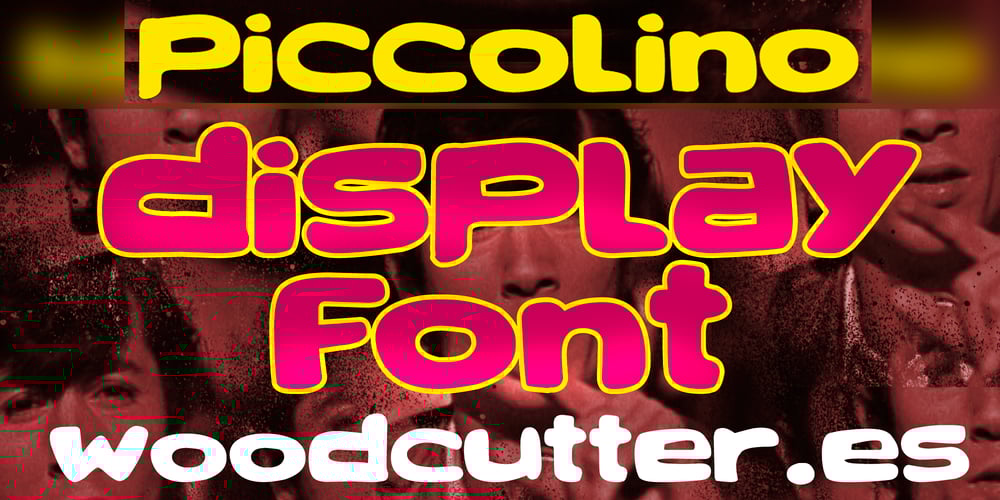
Piccolino Font Family was designed by Jordi Manero and published by Woodcutter. Piccolino contains 1 styles and family package options. “Piccolino” is a font with lowercase yet bold letters, blending organic shapes with a futuristic touch. Its slightly techno design adds modernity without losing the smoothness of its forms. The letters are robust, making them stand out in any project, while their futuristic appearance makes them perfect for contemporary and cutting-edge designs. Ideal for creative projects seeking a unique and modern typeface that captures attention without being too aggressive. “Piccolino” is the perfect choice to give your designs an innovative and fresh touch.